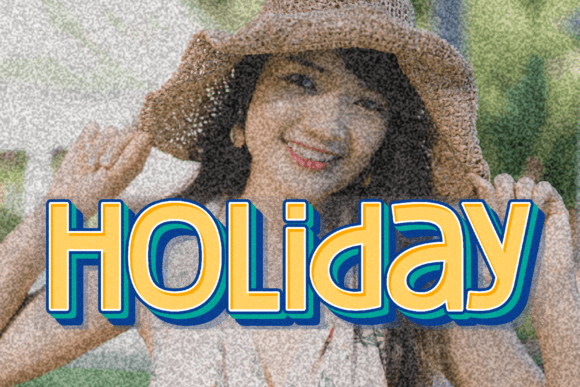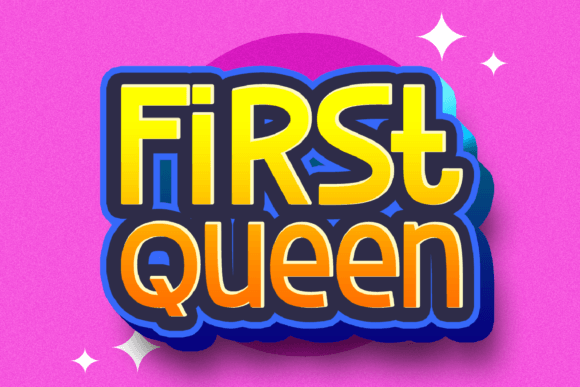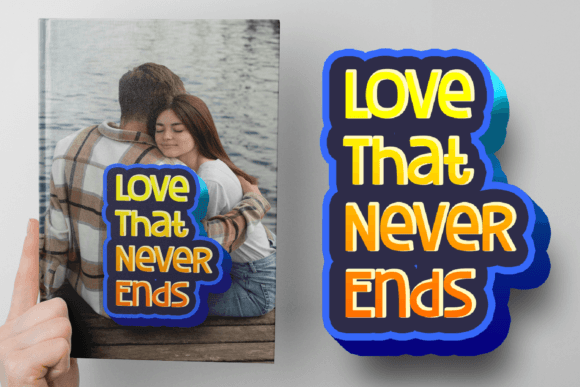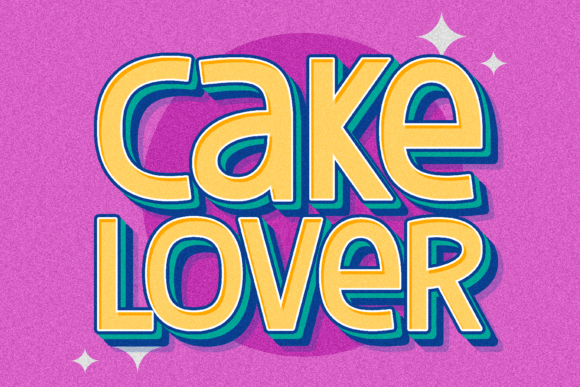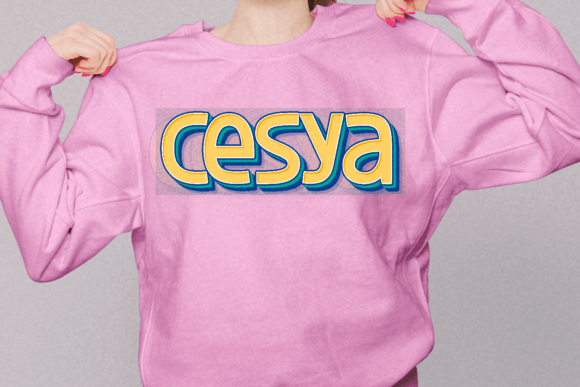
Introduction to For Me Woman Font
Have you ever stumbled upon a font that sparks joy and creativity? For me, that moment happened when I discovered the vibrant For Me Woman Font. Its playful, bold textures instantly transported me to a world of comic books and stylized book covers. As a designer, I know the struggle of finding the perfect font to convey the tone of a project. That’s why I’m excited to share this hidden gem with you.
Designed by the talented 7ntypes, For Me Woman Font is more than just a font – it’s a design resource that adds a touch of Eastern European authenticity to any project. With its transparent background and high-quality design, it’s the perfect choice for creatives looking to add a youthful appeal to their work. Whether you’re working on a comic book, children’s book, or a stylized book cover, this font is sure to make your project stand out.
Key Features of For Me Woman Font
- High-quality design resource ideal for creative projects, offering a modern and elegant touch.
- Features a transparent background, allowing for easy customization and layering in design projects.
- Includes multiple font styles and weights, providing versatility for various design applications.
- Designed to be highly legible, making it suitable for body text, headings, and titles in creative projects.
Honest Review: For Me Woman Font
I recently came across the For Me Woman Font and I must say it’s a great addition to any design resource library. This font is perfect for creating a feminine and elegant touch in your creative project.
One of the things that I appreciate about this font is its high quality and versatility. The font is available in a range of styles, from casual to formal, making it suitable for a variety of design applications.
- High-quality design: The font is well-crafted and looks great on both light and dark backgrounds.
- Transparency: The font has a transparent background, making it easy to place over images or other design elements.
- Limited character set: The font only includes a limited set of characters, which may not be suitable for all design applications.
- Not suitable for small text: The font is best used for larger text sizes, as it can become difficult to read at smaller sizes.
Overall, I’m impressed with the For Me Woman Font and I would definitely recommend it to designers looking for a high-quality, feminine font.
For Me Woman Font
Tips for Getting the Most Out of For Me Woman Font
For Me Woman Font is a high-quality design resource that can be used in various creative projects. To get the most out of it, use it with a transparent background to create a beautiful and elegant design. You can also combine it with other design elements to create a unique look.
For Me Woman Font is commonly used in feminine and elegant designs, such as wedding invitations, greeting cards, and social media graphics. It’s also great for creating a professional and sophisticated look in business presentations and reports.
Is the For Me Woman Font a high-quality font suitable for use in a design resource?
Yes, the For Me Woman Font is a high-quality font designed to meet the needs of designers and artists. With its clean and elegant design, it’s perfect for use in a variety of creative projects, from logos and branding to digital art and graphics. The font is also available for free download, making it an excellent resource for designers of all levels.